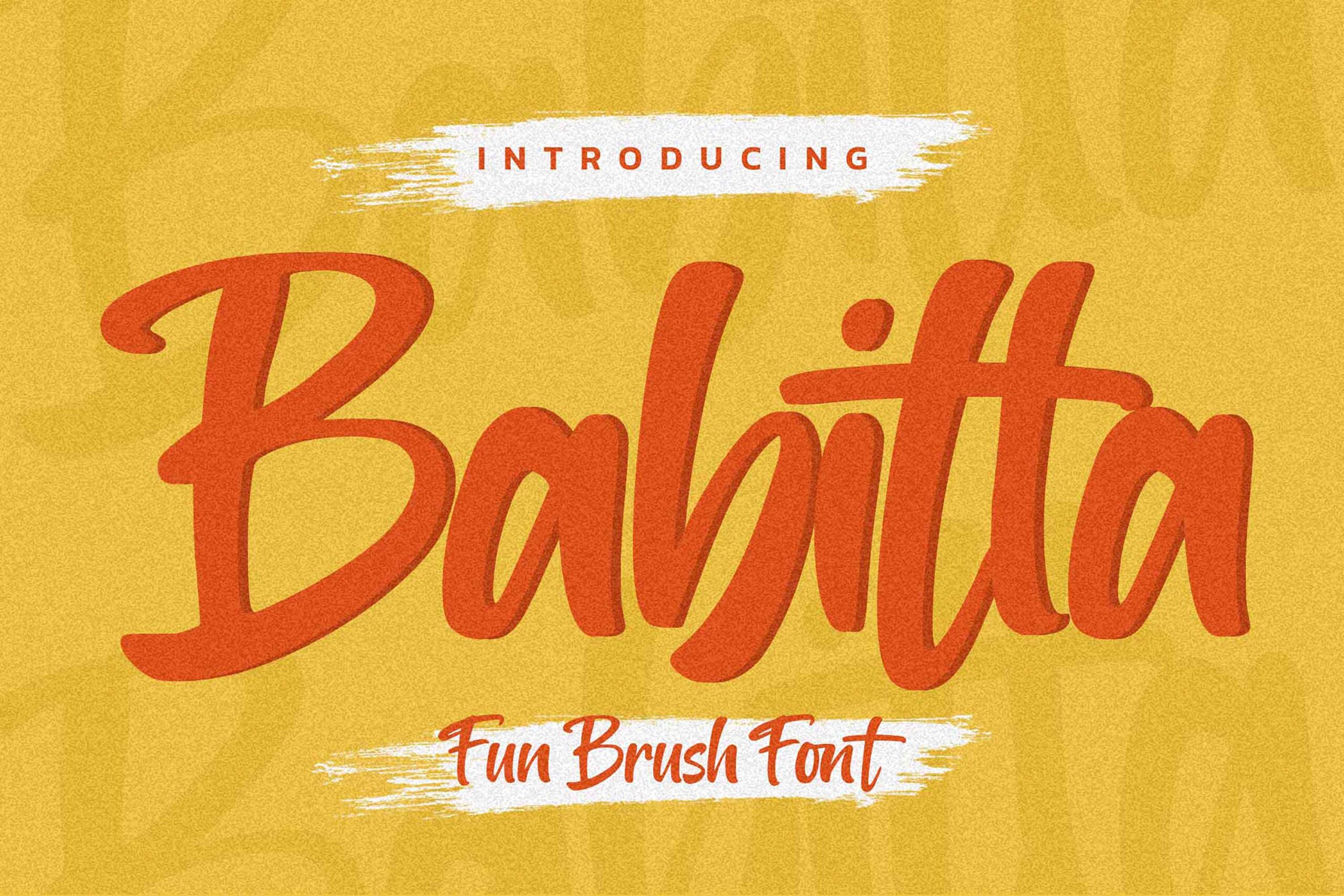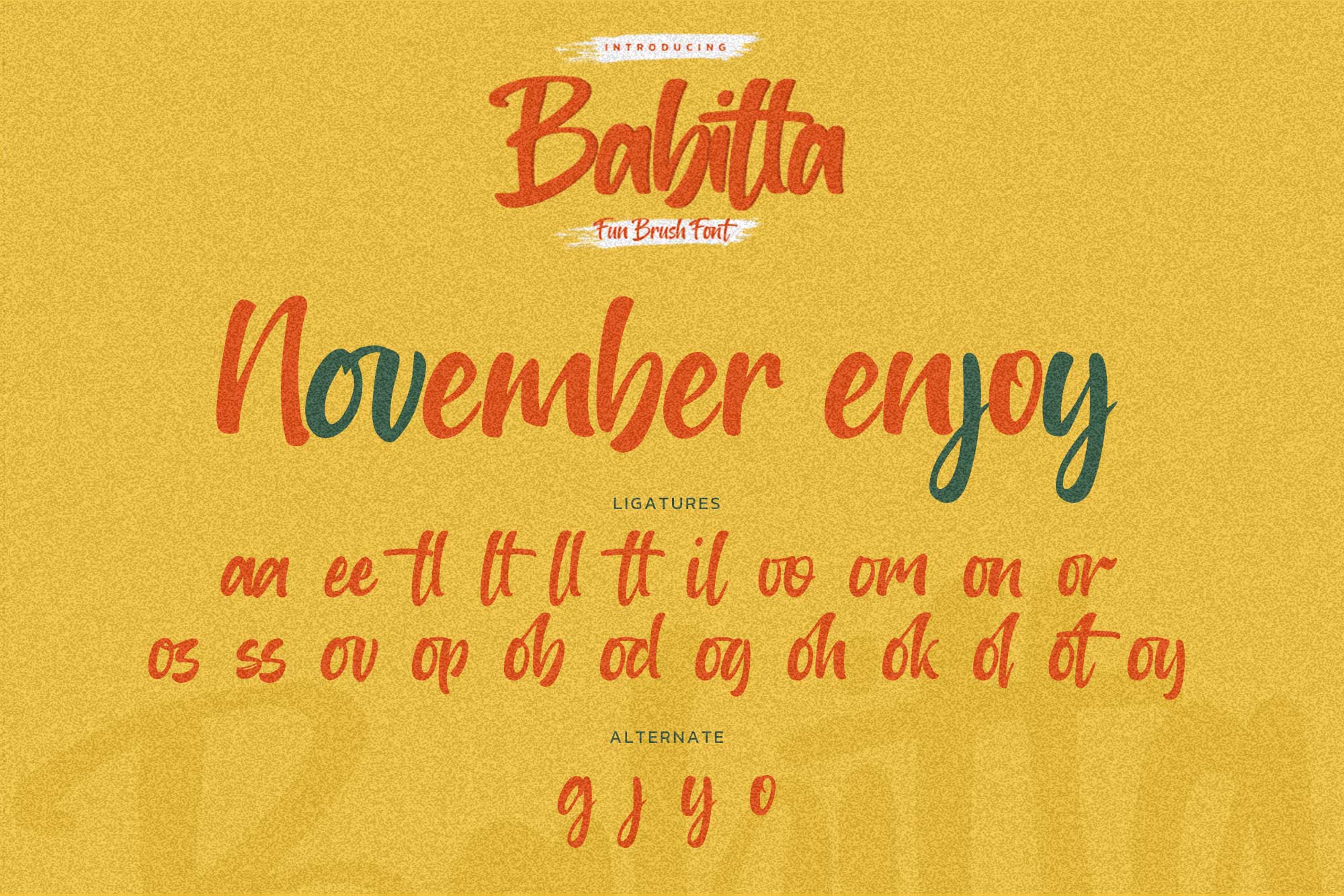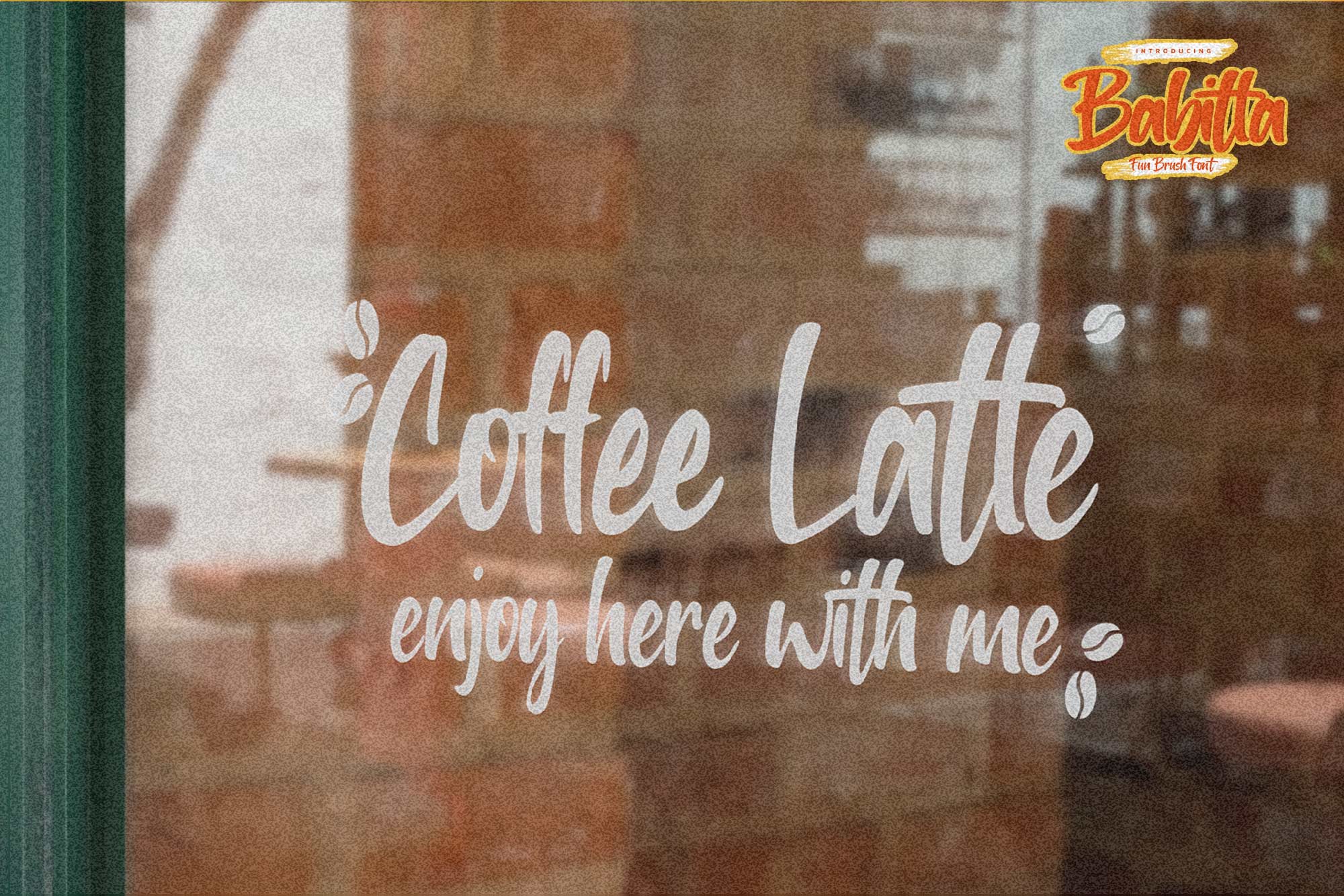
Babitta – This Is Fun Brush Font , modern style and dramatic movement that is written casually and quickly.
The best for labels,poster,project , designs look modern, rough and unique. It’s perfect for labels, quotes, posters, DIY projects, branding, packaging, greeting cards, websites, photography overlays, signs, scrapbooking, tags and so much more! That is why Babitta has a textured, and strong characteristic more natural look. You can activate 23 Ligatures and 4 Alternate glyphs OpenType panel.